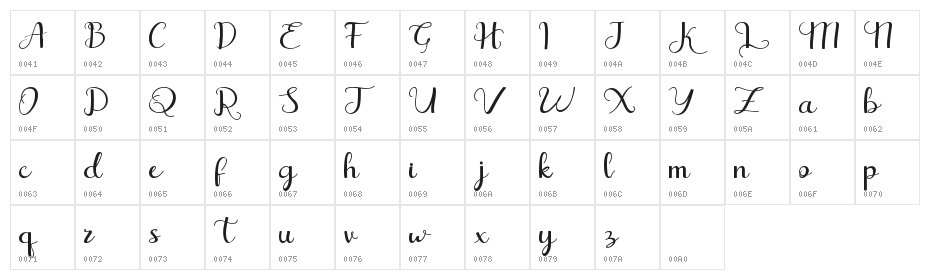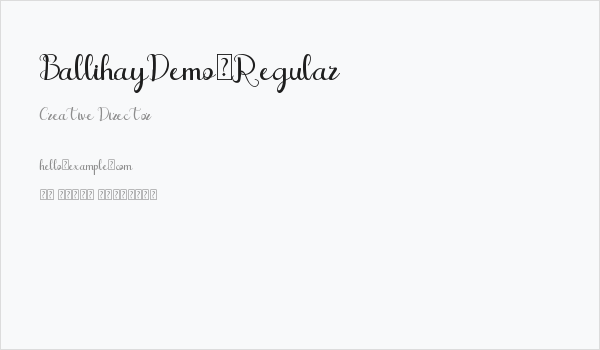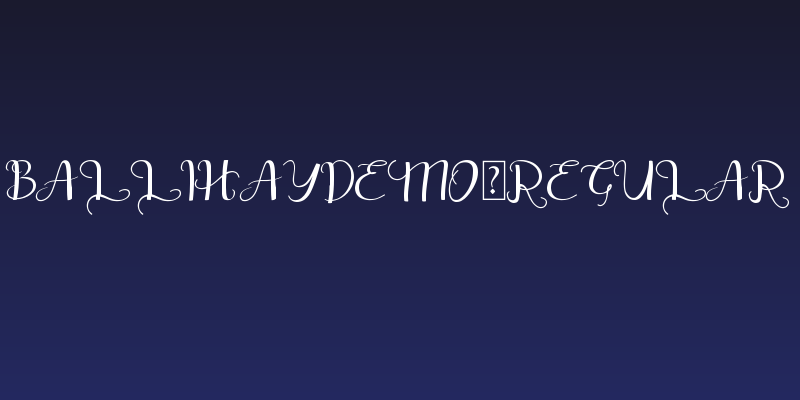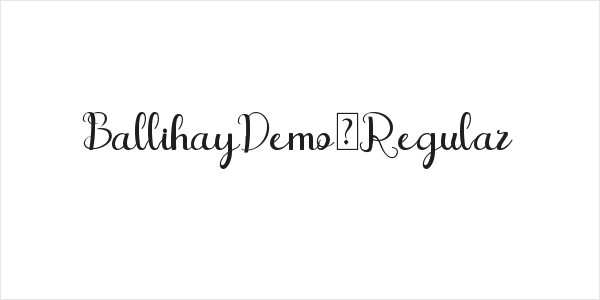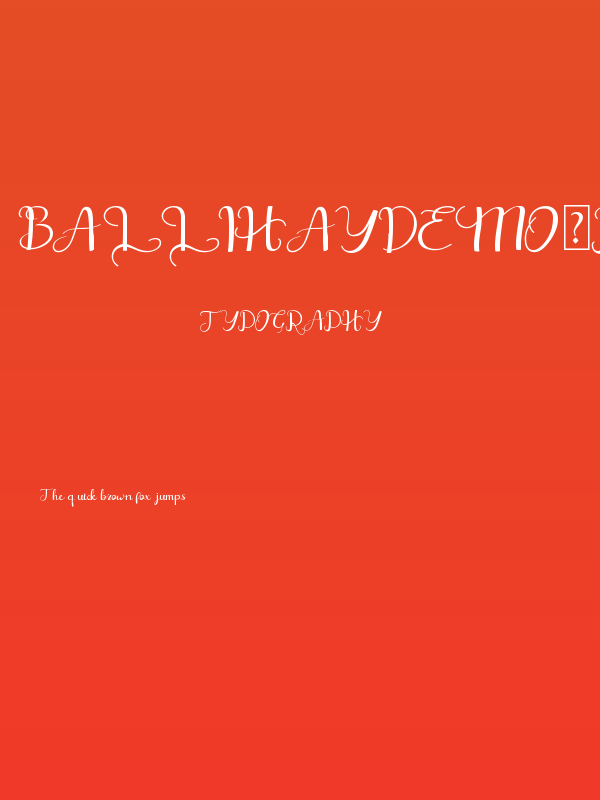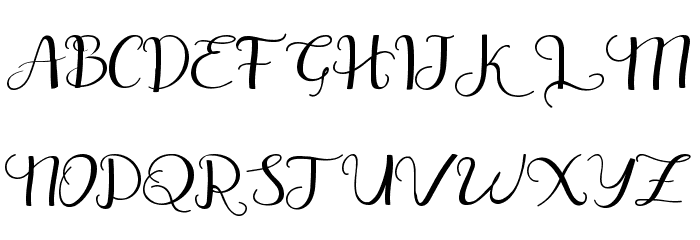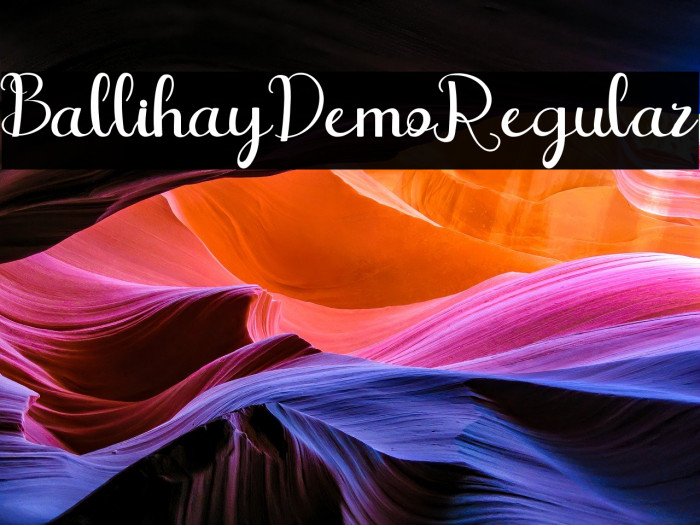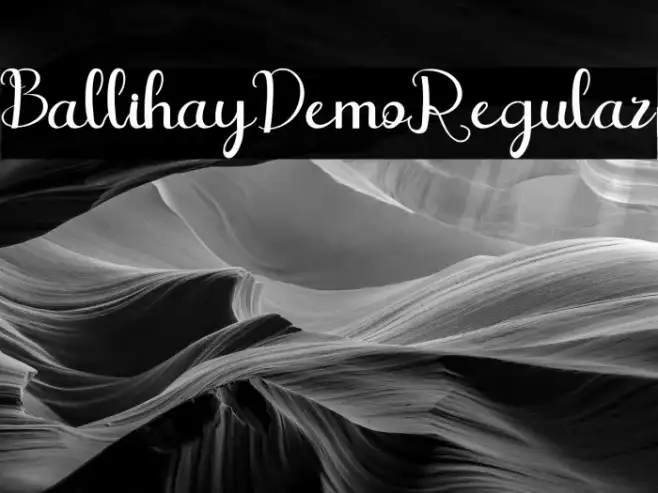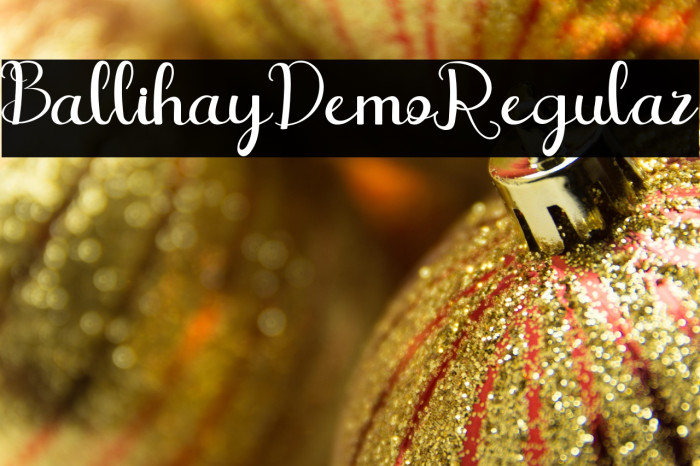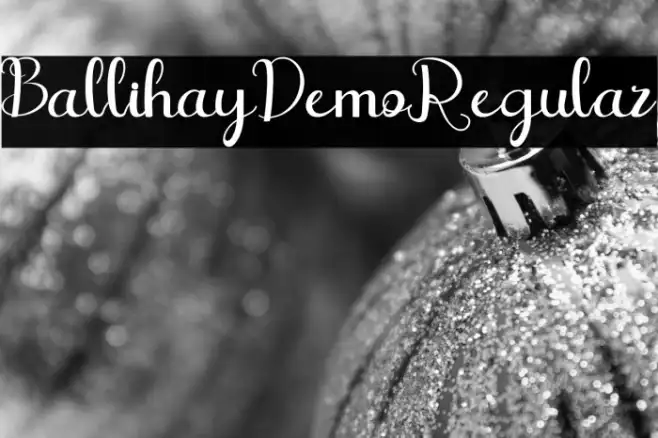
BallihayDemo-Regular Font
BallihayDemo-Regular Description
This font features an elegant and flowing script style, characterized by its smooth, cursive strokes and decorative flourishes. The uppercase letters are particularly ornate, with intricate loops and swirls that add a touch of sophistication. The lowercase letters maintain a consistent flow, with a slightly more restrained design that ensures readability. The overall appearance is both graceful and dynamic, making it suitable for projects that require a touch of elegance and personality. The font's design is versatile, allowing it to be used in various contexts where a stylish and artistic presentation is desired.